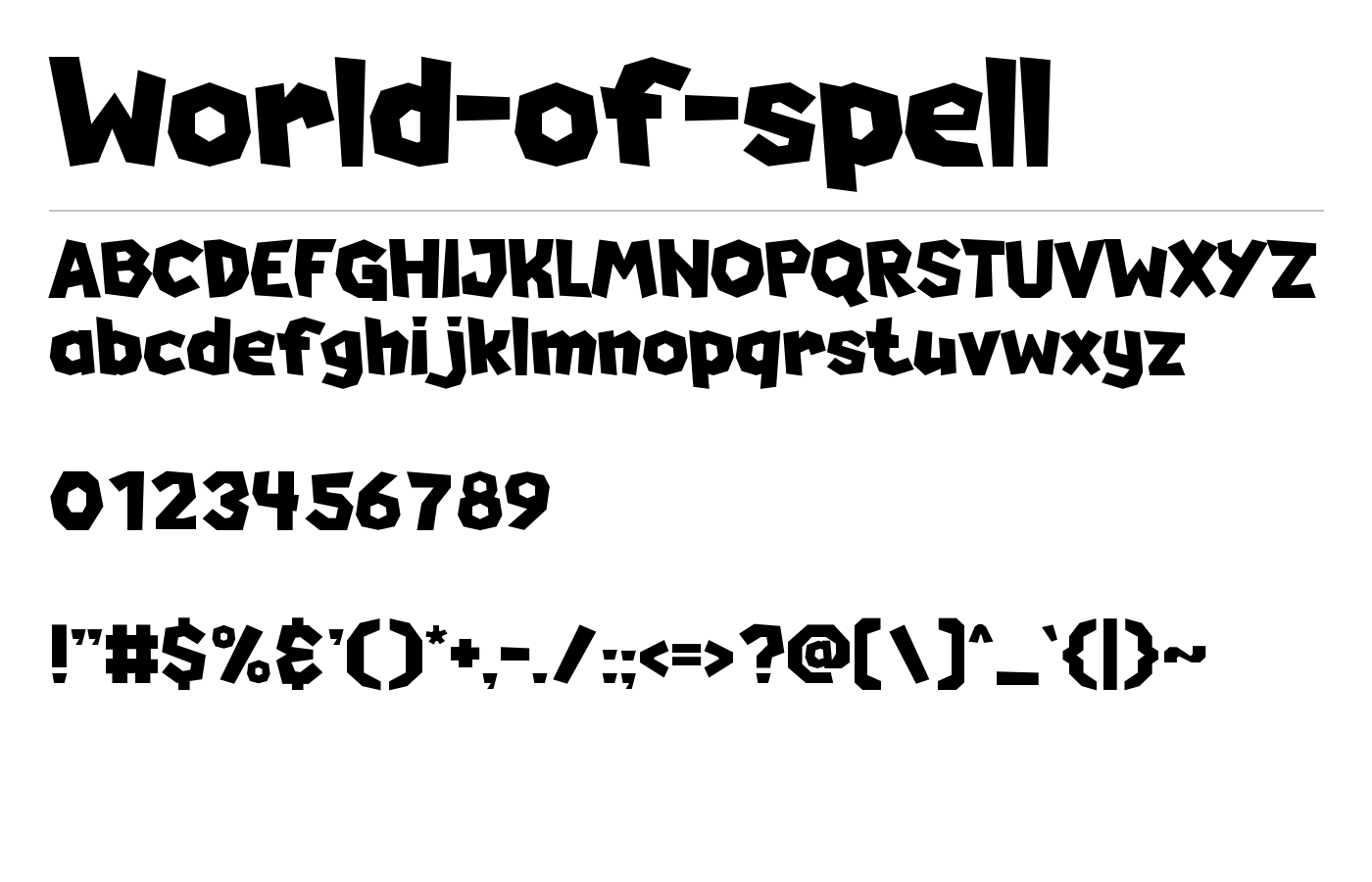
World of Spell is a bold, playful sans serif font with irregular, angular shapes that create a quirky, whimsical vibe. Its slightly condensed letterforms and medium x-height give it good readability while maintaining a lively, hand-crafted feel. This font works great for creative projects, children’s content, or any design needing a fun, magical touch that stands out with personality.
World of Spell Font
About World of Spell Font